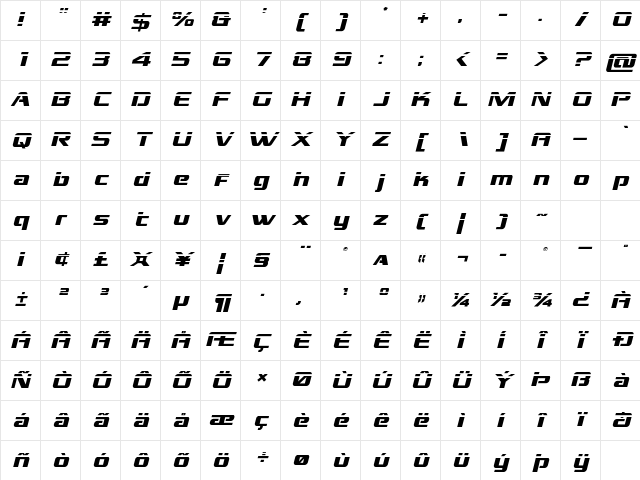
Complete Grand National Laser Italic glyph index. Displaying only characters natively supported by Grand National Laser Italic font.
Grand National Laser is a composed and adaptable typeface that performs quietly and consistently across a wide range of design contexts. The slanted form adds forward momentum and visual energy.